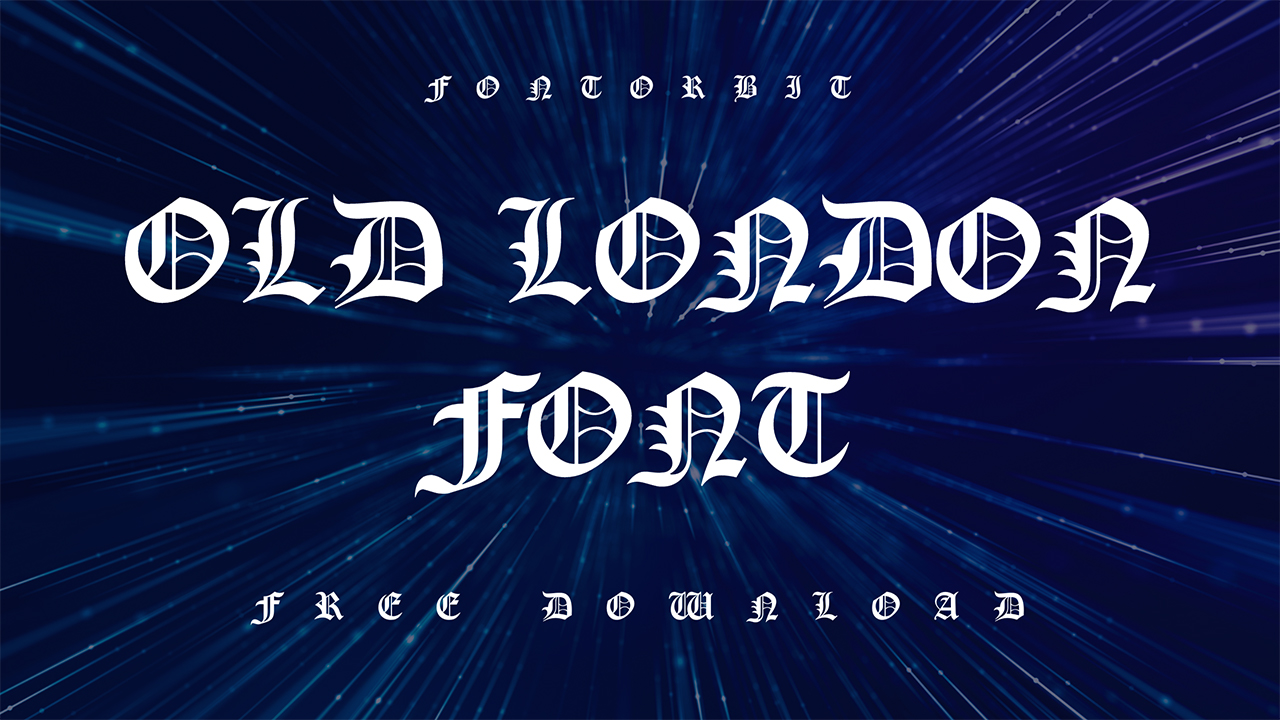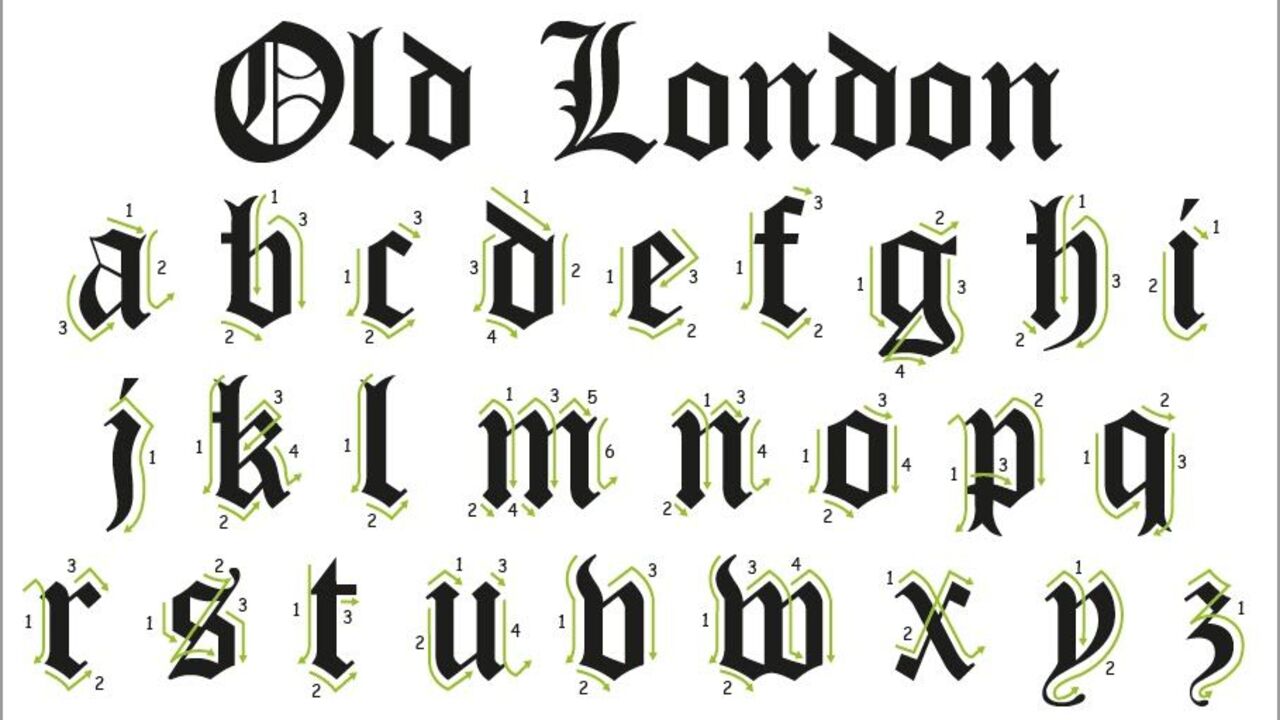
The Old London font by Typographer Mediengestaltung is a Gothic-style typeface that exudes medieval elegance and historical richness. This font belongs to the Gothic, blackletter, and Old English families, known for its intricate and ornate design.
The Old London font captures the essence of medieval and Renaissance aesthetics, though it’s not tied to a specific historical event. This free font is popular for personal and commercial projects, adding historical gravitas to designs.
The Old London font family blends Gothic and medieval script styles, exuding an old-world charm that is distinctive and captivating. Its intricate detailing, sharp lines, and decorative flourishes reflect the grandeur often associated with historic manuscripts and early printed books.
Although Old London primarily comes in a regular style, its visual impact can be enhanced through design techniques such as outlining, shadowing, and pairing with complementary typefaces.
- Logo Design
- Flyers
- Product Packaging
Incorporating the Old London font into your design projects can evoke a sense of history, nobility, and tradition. This font’s aesthetic makes it a great choice for headings, titles, and any text that needs to stand out with a distinct historical feel. Its classic blackletter style is versatile, making it suitable for both contemporary and traditional designs. Here are some creative applications:
The Old London font’s Gothic, medieval style makes it popular in print and digital design. It is often seen in the branding of historical sites, themed restaurants, and in promotional materials for events celebrating medieval or renaissance culture.
You can also find it in book covers, especially those dealing with historical fiction, fantasy genres, or biographies of medieval figures. Furthermore, its ornamental style makes it a favorite in the design of wedding invitations, especially those seeking to evoke a vintage or classic feel.
If the Old London font doesn’t perfectly fit your needs, there are other similar typefaces that capture the same Gothic and medieval aesthetic. These alternatives offer a blend of blackletter and Old English styles, ideal for projects that require a look of historical authenticity and sophistication:
The Old London font captures the timeless allure and elegance of medieval script. While the exact look of historical manuscripts might not always be achievable, similar fonts like Cloister Black and Gothic Ultra OT provide comparable styles for various design projects.
To create a balanced and aesthetically pleasing design that reflects the Old London font’s historic charm, pair it with modern sans-serif typefaces for contrast or other traditional serif fonts to maintain a cohesive look.
1.What Are The Design Principles Behind The Old London Font?
The Old London font is designed to evoke a sense of history, tradition, and sophistication. Its sharp lines, decorative flourishes, and blackletter style create a timeless, elegant, and imposing look.
2.What Is The Color Palette Used With The Old London Font?
The Old London font pairs well with rich, deep colors such as black, gold, and burgundy, which enhance its historic and sophisticated feel. However, it can adapt to a wide range of color palettes, depending on the project’s needs.